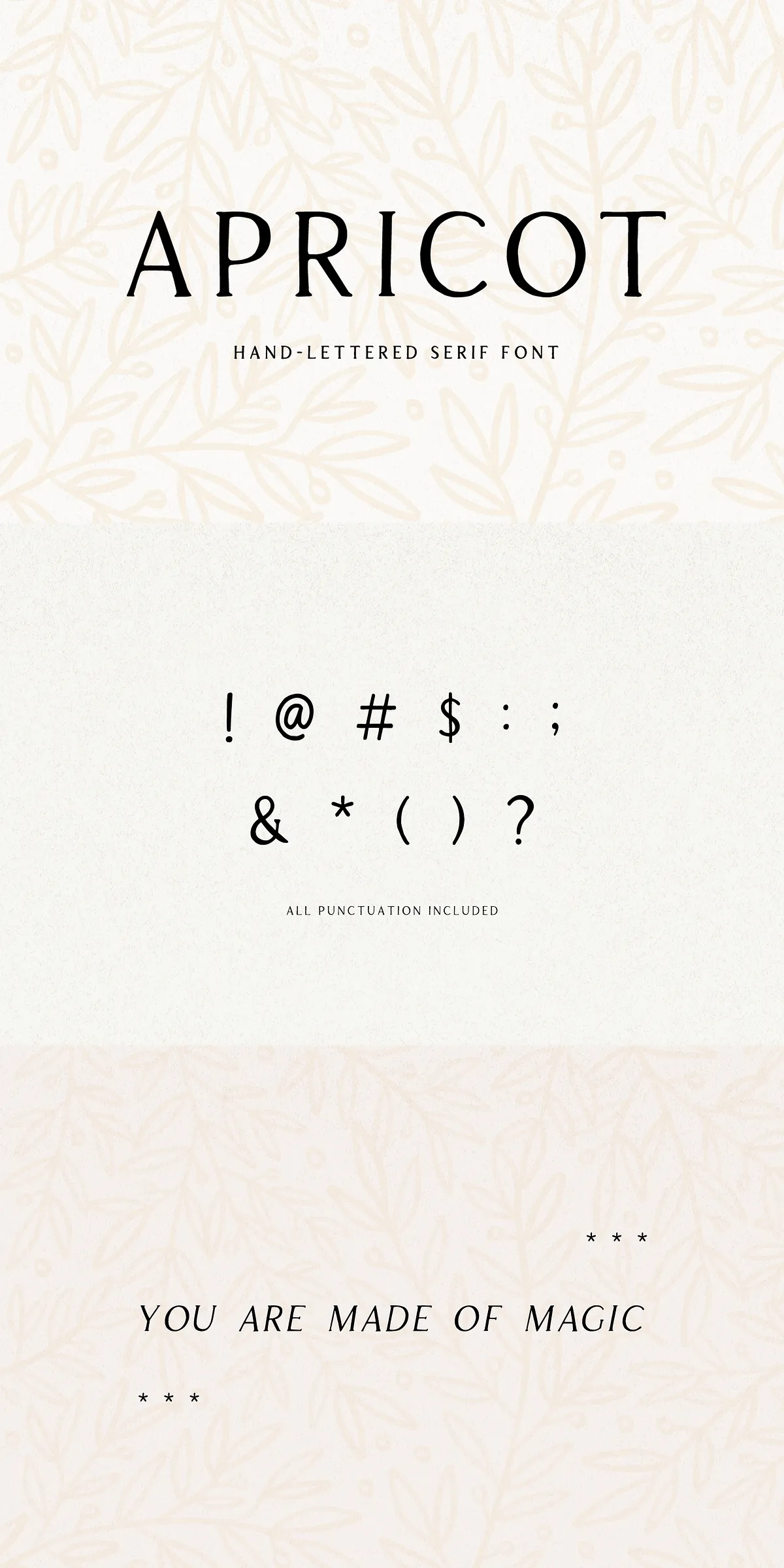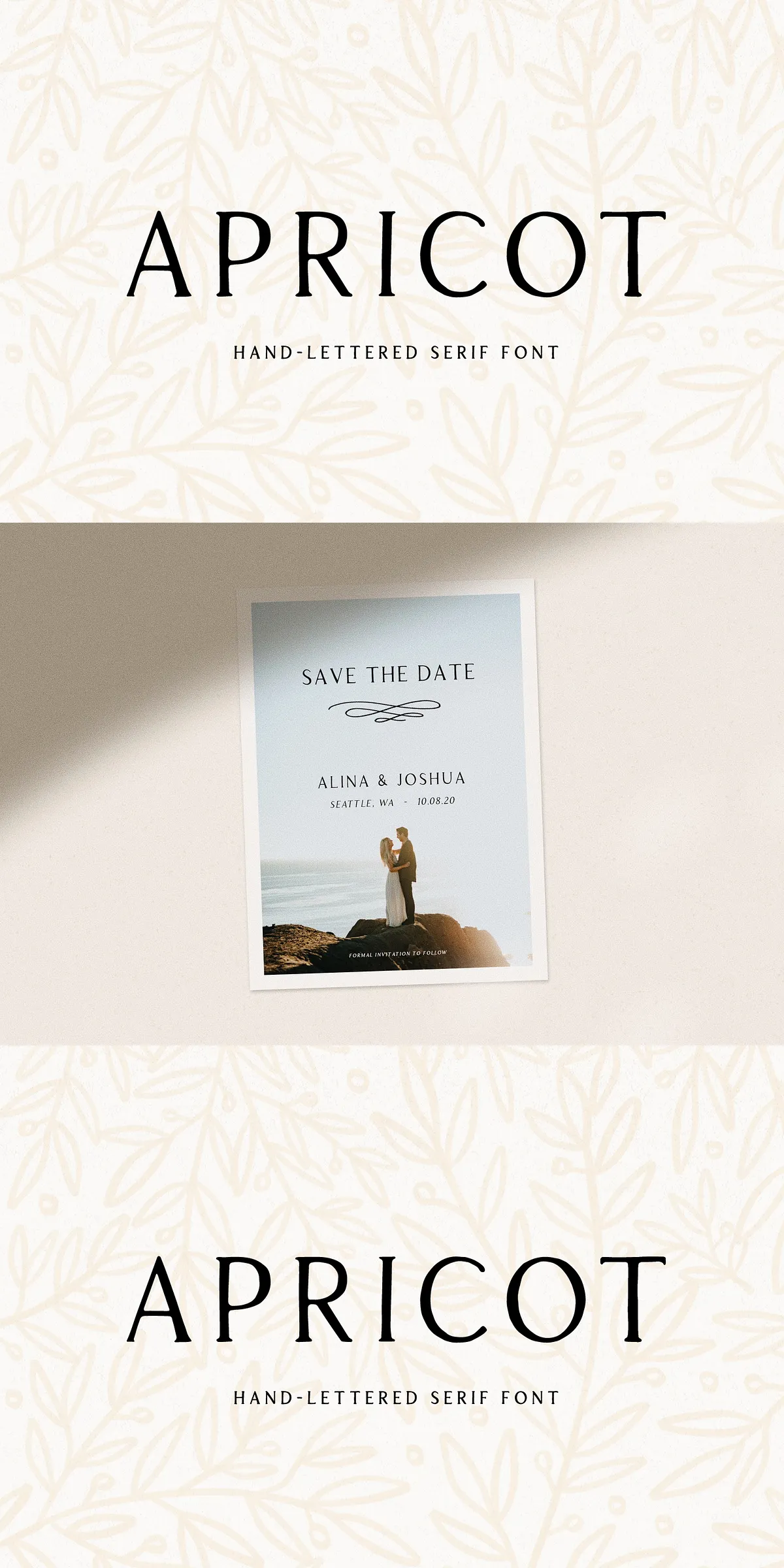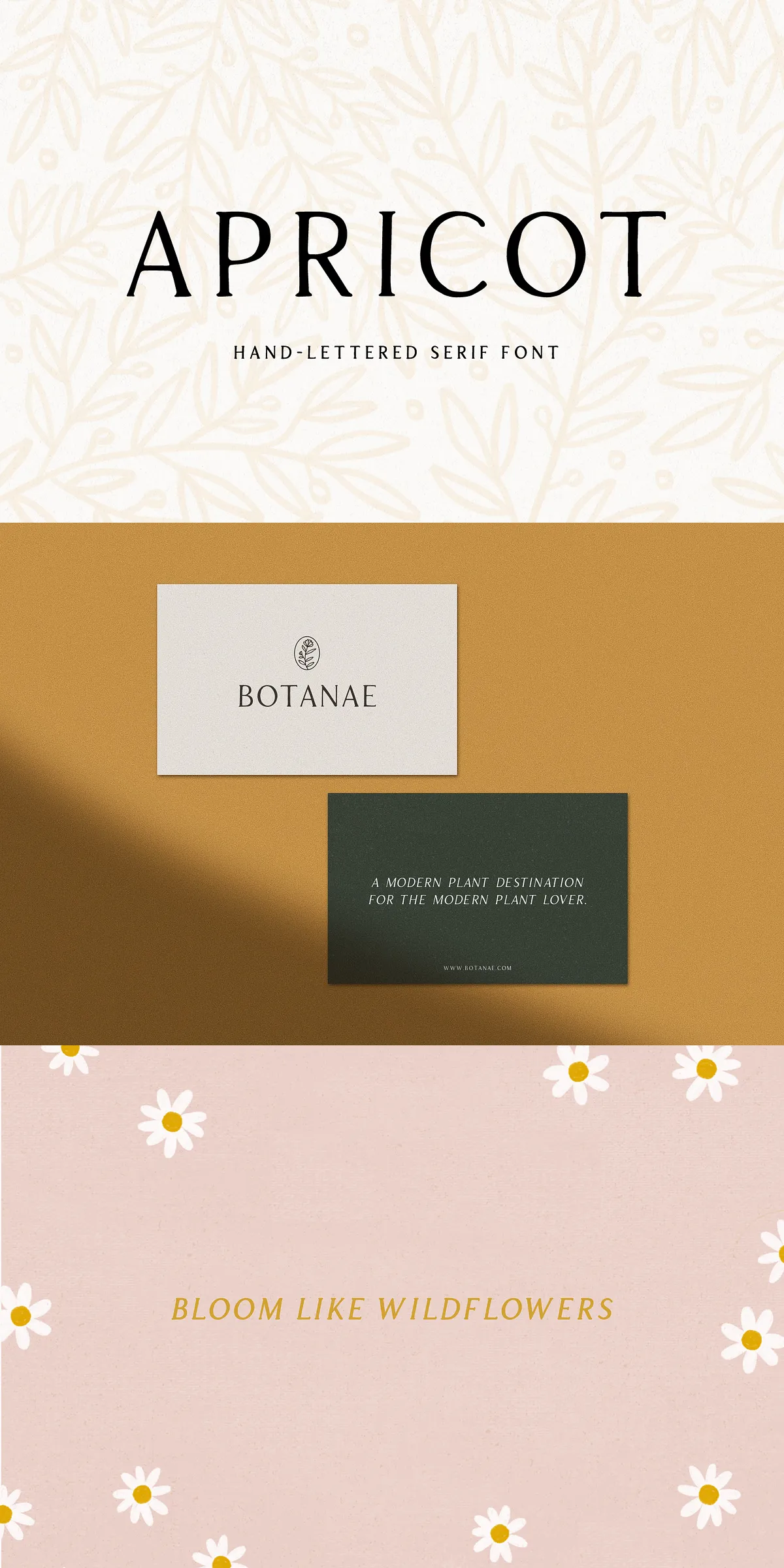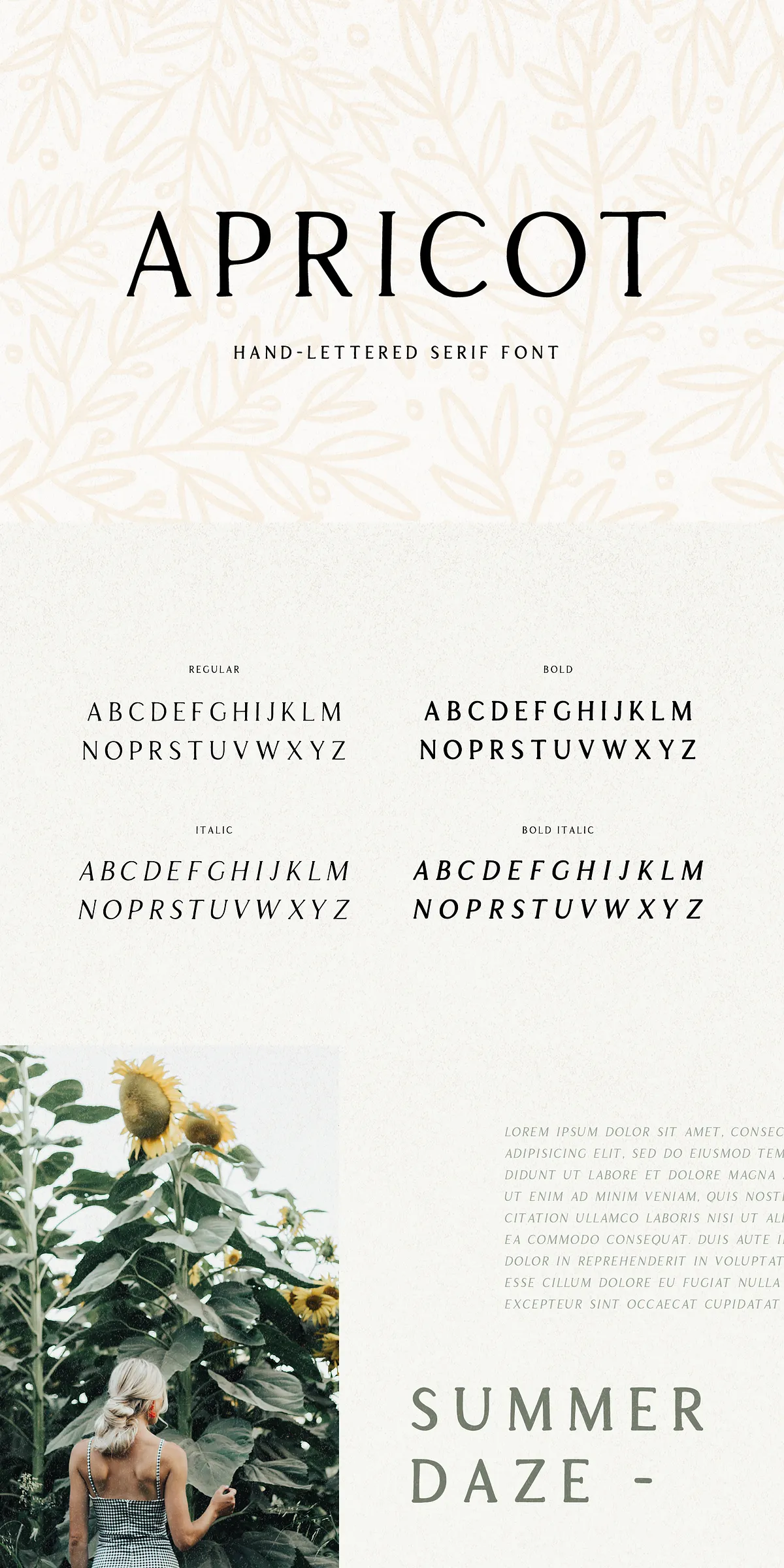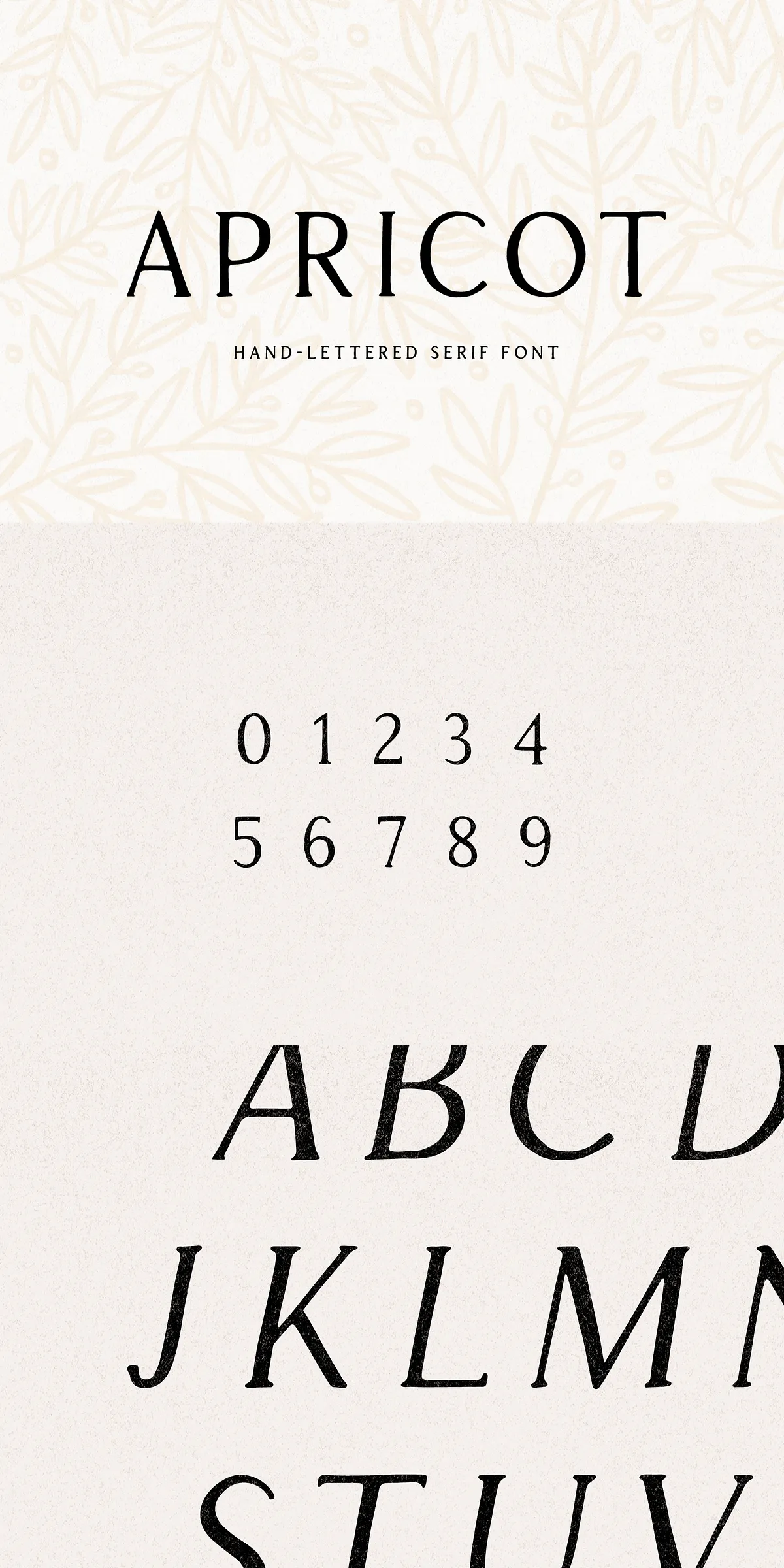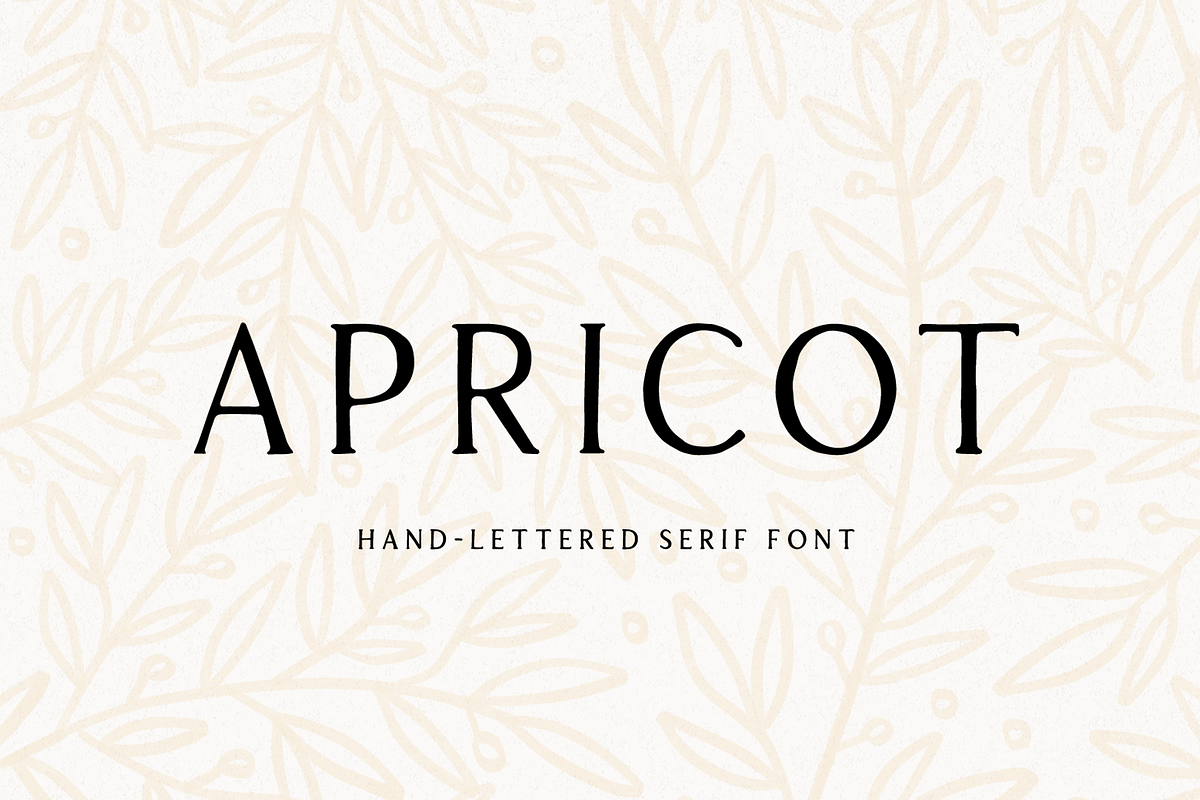
Step into a world where imperfection is art and every letter feels human. Apricot isn’t just a font — it’s a statement. A modern serif typeface born from hand-drawn grace, infused with subtle irregularities that make each character feel real, personal, and full of soul. Whether you’re building a brand, crafting a quote, designing an invitation, or presenting at a conference, Apricot adds a touch of authentic craftsmanship that digital precision often misses.
Embrace the Handmade Aesthetic with Authentic Flair
Unlike rigid, pixel-perfect fonts, Apricot celebrates the beauty of the natural hand. Its curves are slightly uneven, its lines vary in thickness, and its spacing breathes with intentional imperfection. This isn’t a flaw — it’s a feature. It makes your work feel alive, as though it was drawn by a real person, not generated by a machine. This hand-crafted look is ideal for:
- Brand Logos – Create a warm, approachable identity that stands out from sterile digital fonts.
- Quotes & Inspirational Text – Make your messages feel personal, intimate, and meaningful.
- Invitations & Event Materials – Add elegance and charm to weddings, launches, or intimate gatherings.
- Business Cards & Letterheads – Leave a lasting impression with a touch of authenticity.
- Blog Posts & Editorial Headlines – Draw readers in with a font that feels both modern and timeless.
- Presentations & Slideshows – Bring energy and humanity to your messaging.
Engineered for Clean, Powerful Typography
Despite its artisanal roots, Apricot is built for performance. Each style — Regular, Italic, Bold, and Bold Italic — is carefully designed to maintain readability, balance, and impact at any size. Whether displayed at 12pt on a business card or 120pt on a banner, the font delivers clarity without losing character.
Key Features:
- All Caps Only (Uppercase) – Clean, powerful, and highly legible. Ideal for headlines and titles.
- Full Numbers & Punctuation – Supports standard numeric and typographic symbols for flexible use.
- English Characters Only – Optimized for clear, expressive typography in English-speaking markets.
Perfect for Designers Who Value Craft & Character
Apricot speaks to creatives who see typography not just as communication, but as emotional expression. It’s the font you choose when you want your message to feel personal, when you want your work to be noticed not for its perfection — but for its humanity.
Use Apricot to Tell Your Story
Every piece of design is a story. With Apricot, you’re not just choosing a font — you’re selecting a mood, a feeling, a voice. Use it to craft:
- Minimal yet warm branding that connects with audiences on a human level.
- Wedding invitations that feel handwritten, heartfelt, and unforgettable.
- Blog titles that stand out without overpowering the content.
- Presentation slides that command attention with character.
- Merchandise designs that feel like handmade gifts, not mass-produced stock.
Why Apricot Feels Different
It’s not just about style. It’s about intent. The hand-drawn strokes, the slight variation in stroke weight, the deliberate imperfections — these are all choices made to make your work feel authentic. In a digital world that’s increasingly uniform, Apricot stands out by being beautifully, intentionally imperfect.